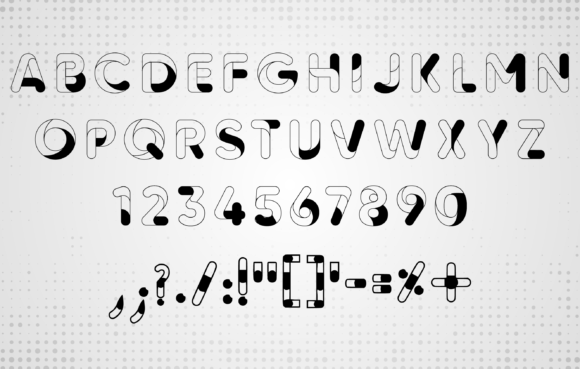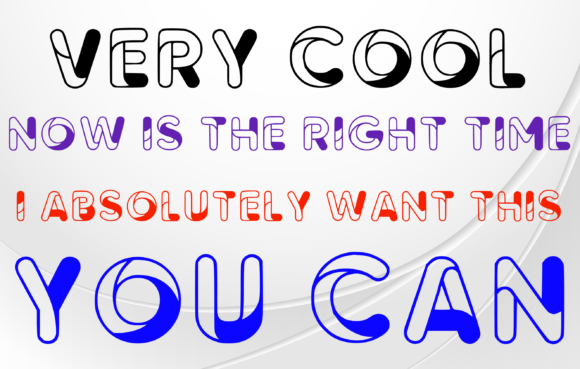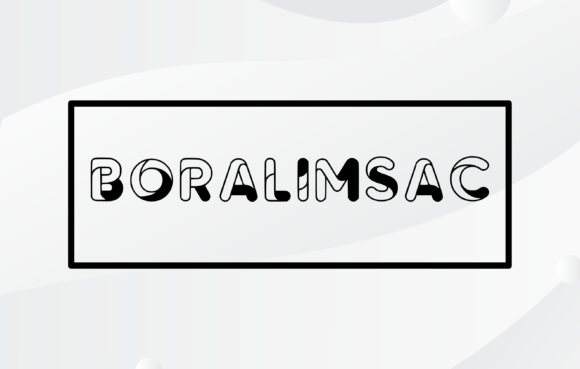
Boralimsac Font: Elevate Your Designs with a Touch of Elegance
In the world of typography, fonts play a crucial role in conveying the message and aesthetic of a design. Among the numerous fonts available, Boralimsac stands out as a stunning display font that can add a touch of sophistication and elegance to various crafty ideas. In this article, we’ll explore the features and benefits of Boralimsac, and how it can be used to enhance your designs.
What is Boralimsac Font?
Boralimsac is a beautiful and attractive display font, carefully crafted to make a statement. Its original look is designed to appeal to a wide range of crafty ideas, from letterheads and titles to stationery. The font’s unique style and charm make it an excellent choice for designers and crafters looking to add a personal touch to their work.
Key Features of Boralimsac Font
- Unique and Original Design: Boralimsac boasts a distinctive and eye-catching design that sets it apart from other fonts.
- High Versatility: The font can be used for a variety of design projects, including letterheads, titles, stationery, and more.
- Elegant and Sophisticated: Boralimsac’s elegant and sophisticated style makes it perfect for designs that require a touch of refinement.
- Easy to Read: Despite its ornate design, Boralimsac is easy to read, making it suitable for use in a range of applications.
Benefits of Using Boralimsac Font
Using Boralimsac font in your designs offers several benefits, including:
- Enhanced Visual Appeal: Boralimsac’s unique design and elegant style can add a touch of sophistication to your designs, making them more visually appealing.
- Increased Creativity: The font’s versatility and charm can inspire creativity and help you think outside the box when it comes to your designs.
- Professional Look and Feel: Boralimsac’s polished and refined style can give your designs a professional look and feel, making them suitable for business and personal use.
How to Use Boralimsac Font in Your Designs
Using Boralimsac font in your designs is easy and straightforward. Here are a few tips to get you started:
- Pair it with Other Fonts: Combine Boralimsac with other fonts to create a unique and visually appealing typography.
- Experiment with Colors and Textures: Play around with different colors and textures to add depth and interest to your designs.
- Use it for Headings and Titles: Boralimsac is perfect for use in headings and titles, where its elegant style can make a statement.
In conclusion, Boralimsac font is a beautiful and attractive display font that can add a touch of elegance and sophistication to your designs. Its unique design, versatility, and charm make it an excellent choice for designers and crafters looking to elevate their work. Whether you’re creating letterheads, titles, or stationery, Boralimsac is sure to make a statement.